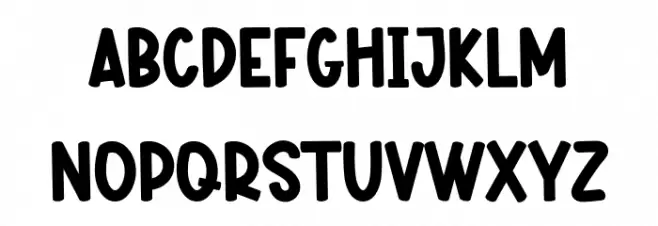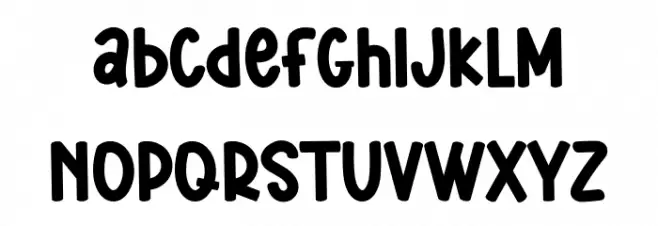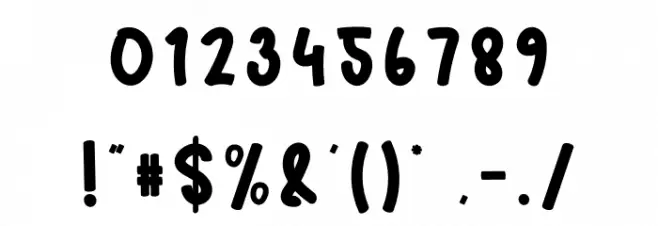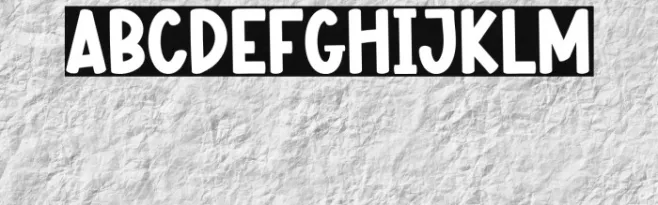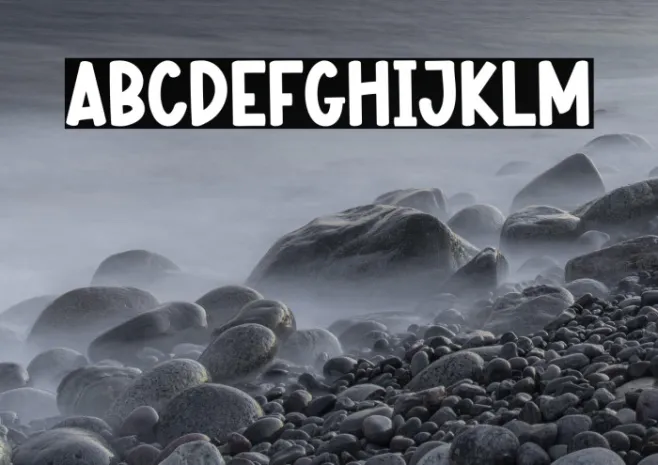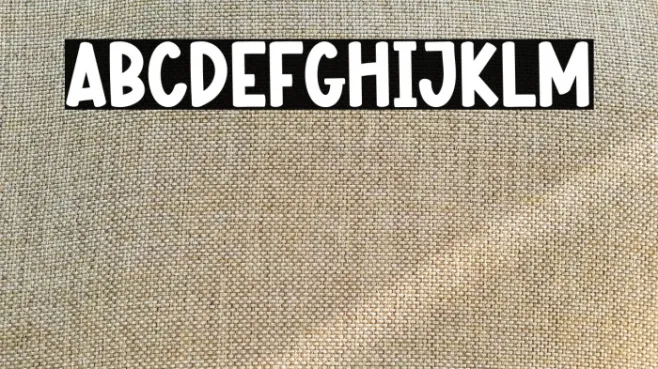
SMOOTH CHEESE
This playful and bold font features rounded edges and a slightly irregular baseline, giving it a whimsical and friendly appearance. The characters are thick and uniform, with a consistent stroke width that enhances readability. The font's informal style makes it suitable for casual and fun designs. It includes a full set of uppercase and lowercase letters, numbers, and a variety of special characters, ensuring versatility in use.
A playful, bold font with rounded edges and a whimsical style.
- Proposed Projects: Ideal for children's books, playful branding, party invitations, and casual social media graphics.
- Overall Style: Playful